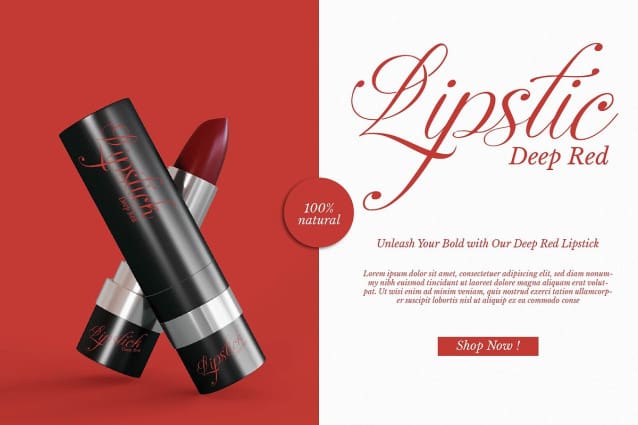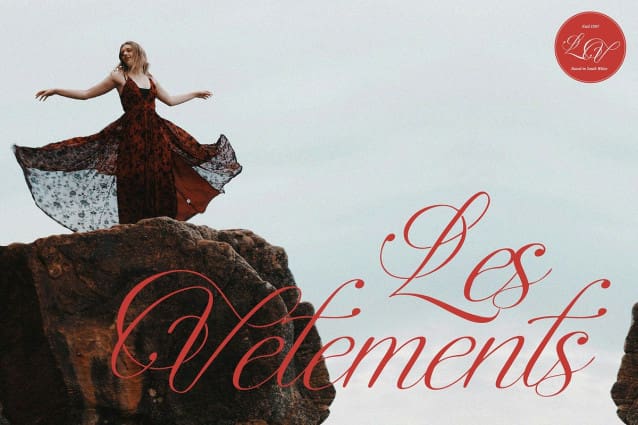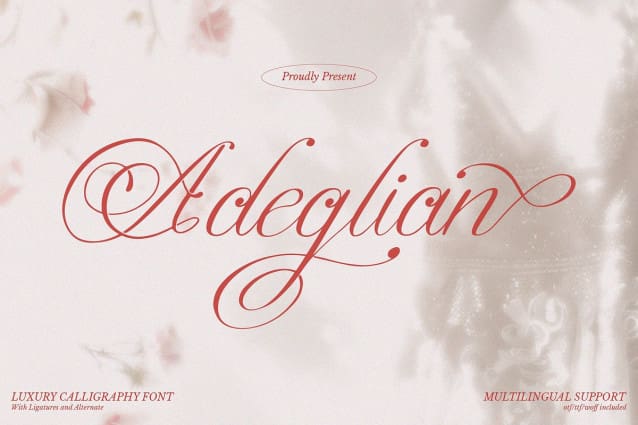
Adeglian Font
Adeglian Font | Luxury Calligraphy Font, from Denustudios, suitable for any projects such as: logos, branding projects, homeware designs, product packaging, mugs, quotes, posters, shopping bags, t-shirts, book covers, name card, invitation cards, greeting cards, label, photography, watermark, special events, and all your other lovely projects that need a Luxury Calligraphy Font taste.